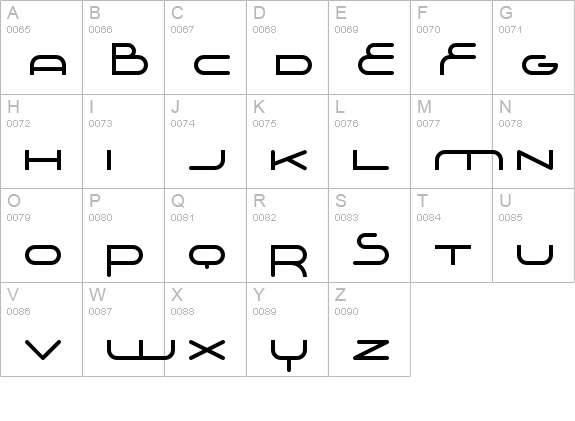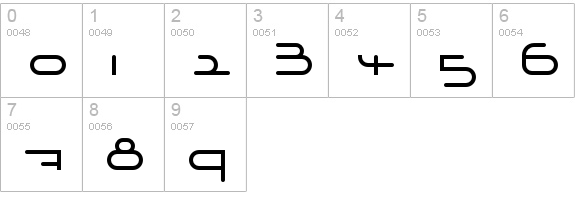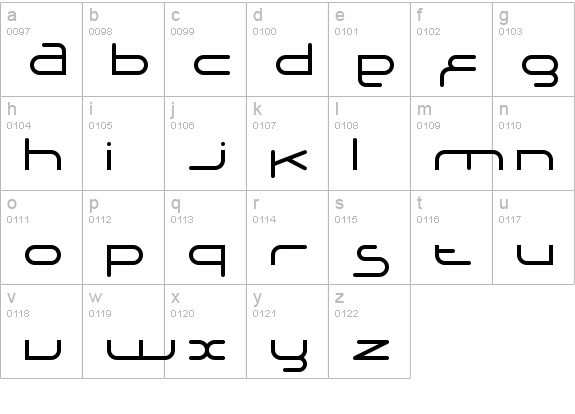
Adrenalin Font Details
Introducing Adrenalin font - a dynamic and energetic typeface that exudes power and excitement. With its bold and stylish design, Adrenalin font is perfect for adding a touch of intensity to your projects. Whether you're creating a sports-themed poster, a high-energy advertisement, or a thrilling event flyer, this font will make a lasting impression. And the best part is, Adrenalin font is completely free to download at FontsMarket.com. So you can unleash your creativity without any cost constraints. Don't miss out on this opportunity to elevate your designs with the striking and impactful Adrenalin font. Download it today and let your imagination run wild!